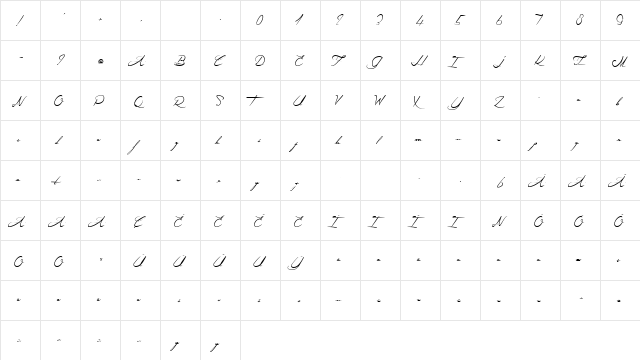
Angelique ma douce Colombe Regular Font Preview
Angelique ma douce Colombe Regular
Angelique ma douce Colombe Regular Font Details
| Foundry | M.K.V |
Design Context for Angelique ma douce Colombe Typeface
Angelique ma douce Colombe is a composed and adaptable typeface that performs quietly and consistently across a wide range of design contexts.